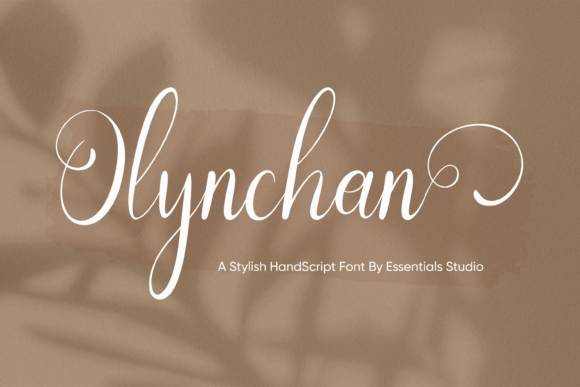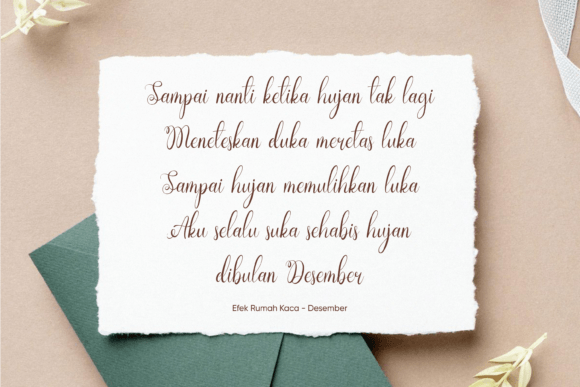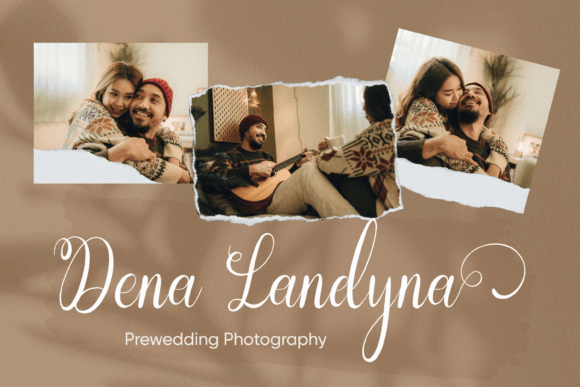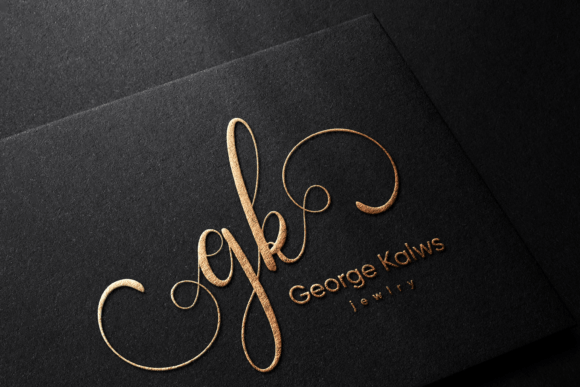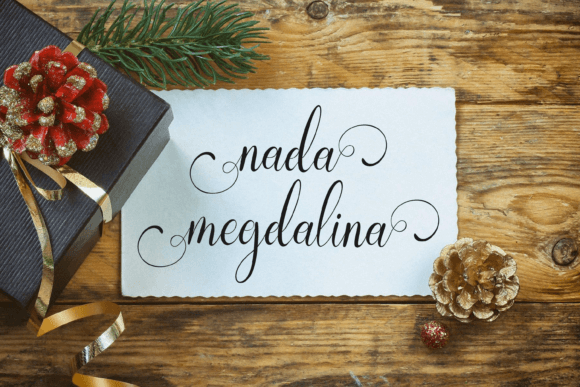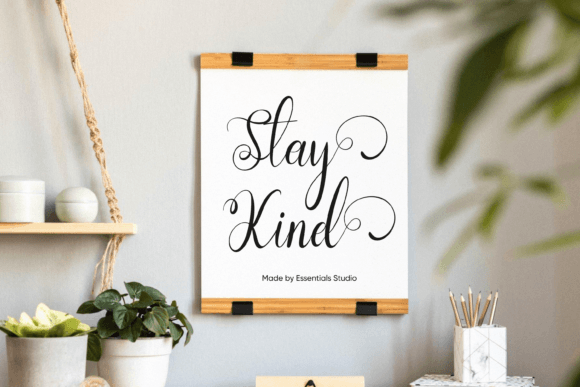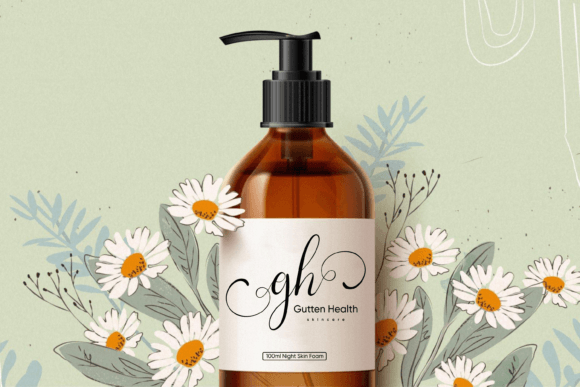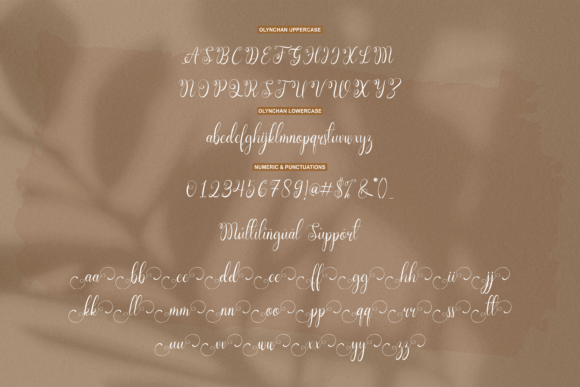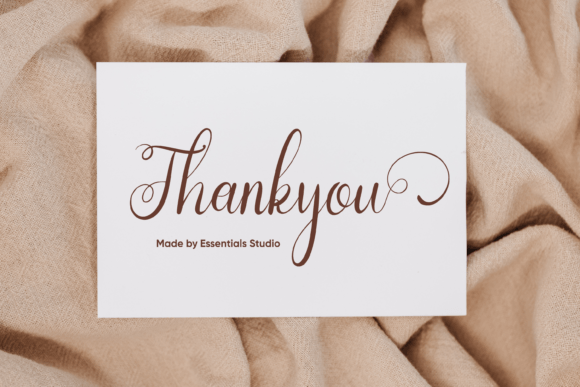
Olynchan Font
What Is Olynchan Font?
Olynchan is a flowing handwritten font designed to bring elegance and sophistication to all your creative projects. With its graceful curves and smooth lines, this font adds a timeless feel that makes your work stand out. Because of its refined style, Olynchan is perfect for both personal and professional use.
You’ll see how easily it elevates your designs and leaves a lasting impression.
Olynchan is highly versatile, making it suitable for a wide range of design applications. For example, it’s ideal for product packaging. Whether you design labels for beauty products or handmade items, this font creates a luxurious, polished look.
Additionally, it works beautifully for branding projects. If your brand needs an elegant and unique identity, Olynchan helps you craft logos, business cards, and marketing materials that feel sophisticated.
It’s also perfect for magazines and editorial layouts. Its smooth, flowing strokes add a stylish flair that captures attention on every page.
When you create wedding invitations, Olynchan sets the tone for a romantic celebration. Each letter feels personal and refined, making your designs unforgettable.
Moreover, it shines in social media graphics. Whether you share quotes, promotions, or announcements, this font ensures your posts look professional and inviting.
Why Should You Choose Olynchan Font?
There are many reasons to include Olynchan in your font collection. First, it’s highly legible despite its elegant style. Whether you use it in big headlines or smaller captions, every word stays clear and balanced.
Also, Olynchan pairs beautifully with clean serif or sans-serif fonts, which helps you create cohesive and harmonious layouts.
Because it’s PUA encoded, you can access all glyphs, swashes, and alternates without extra software. Personalizing your text is fast and effortless.
Designers appreciate that it looks polished from the first use, saving time while delivering professional-quality results.
Olynchan Font brings a sense of grace, beauty, and sophistication to every project. For example, when you want your designs to feel timeless and refined, this font makes it easy.
Even minimalist layouts gain extra elegance with Olynchan’s flowing character. Whether you’re creating packaging, social media posts, or wedding stationery, your work will look professional and unique.
Using a premium handwritten font also shows your dedication to detail and high-quality design. This helps build trust with your audience and leaves a positive impression.
Olynchan Font is more than just a typeface—it’s a creative tool that helps you share your ideas with elegance and style. From branding and packaging to wedding invitations and magazines, this font adapts seamlessly and adds a timeless handwritten touch to any design.